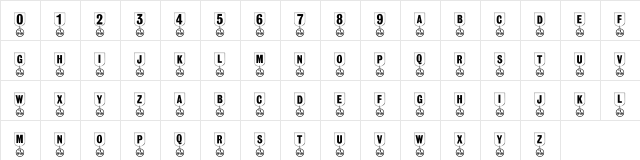
101! #1 Dad Regular
Design Context for 101! #1 Dad Typeface
101! #1 Dad is a composed and adaptable typeface that performs quietly and consistently across a wide range of design contexts.